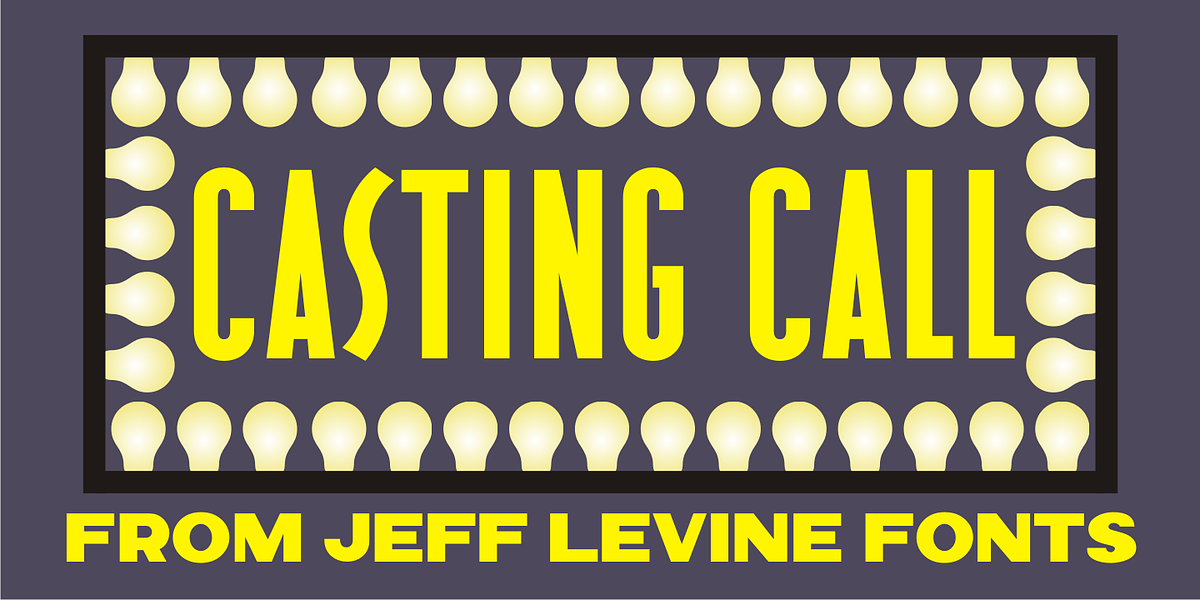
Casting Call JNL
Casting Call JNL is a simple condensed sans modeled from the hand-lettered title of a piece of vintage sheet music entitled “Somebody Else is Taking My Place”; a 1940s song co-authored and made famous by bandleader Russ Morgan.